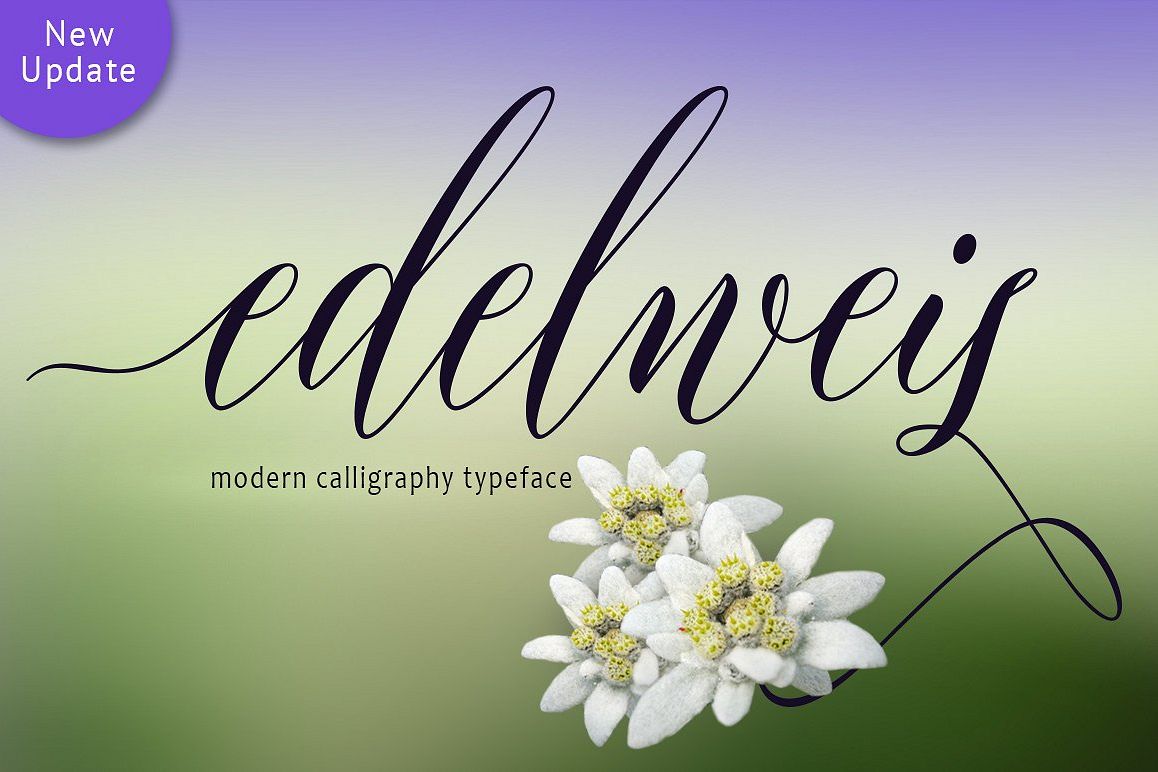
Edelweis Script
Edelwies-Regular
Edelweis Script font calligraphy
is modern with smooth lines, pointy-edged pull pens, a blend of classic
and modern and elegant touch. Can be used for various purposes.such as
the title, signature, logo, correspondence, wedding invitations,
letterhead, signage, labels, newsletters, posters, badges, etc.
Language Support : Albanian, Basque, Breton, Chamorro,
Danish, Dutch, English, Faroese, Finnish, French, Frisian, Galician,
German, Icelandic, Italian, Malagasy, Norwegian, Portuguese, Swedish
The Features of this fonts is:
• Contextual Alternates
• Standart ligatures
• Discretionari Ligatures
• Swashes
• Stylistic sets
• Initial & Titling Alternates
Basic Latin A-Z and a-z Numbers Symbols